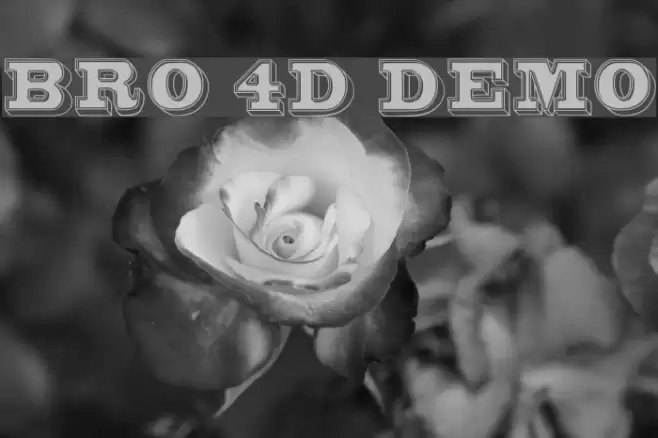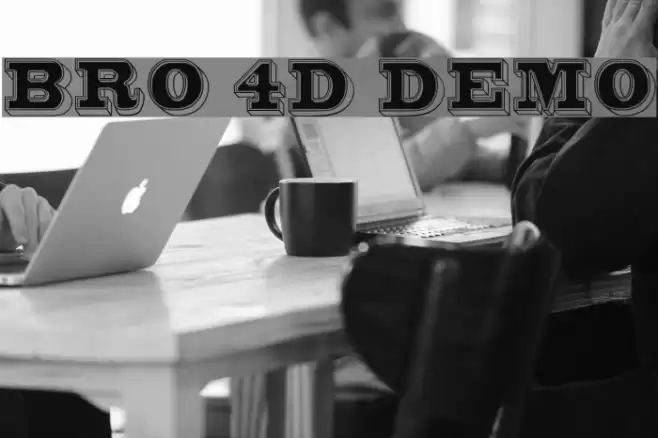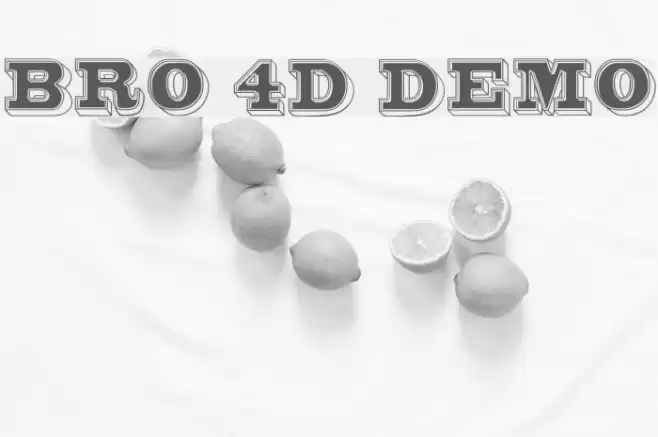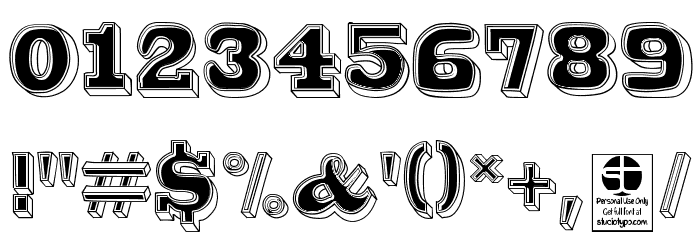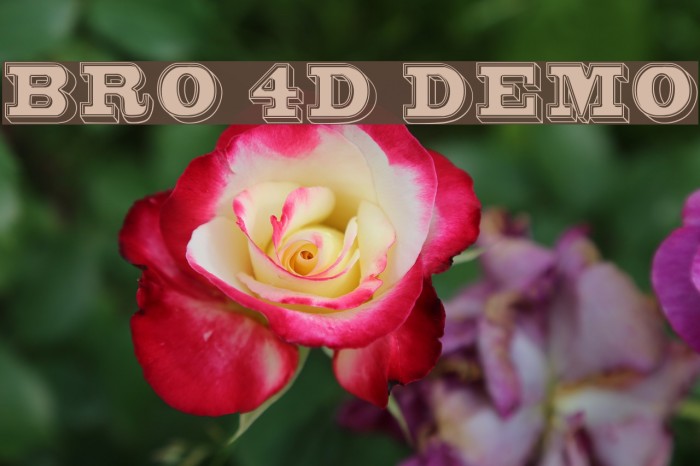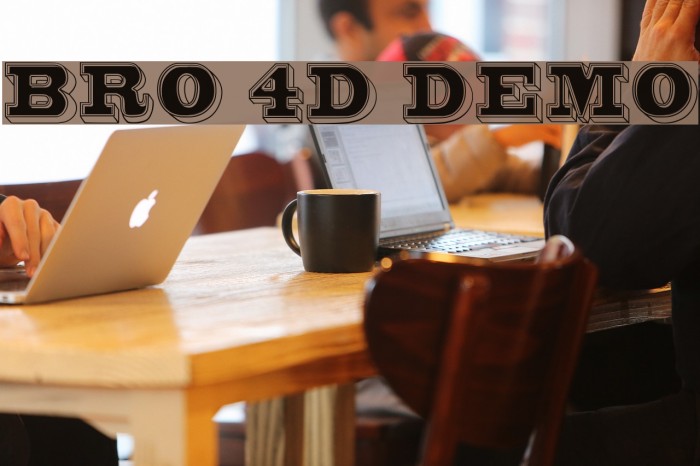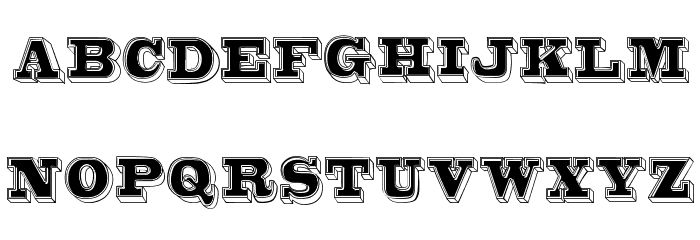
Bro 4D Demo Font
Bro 4D Demo Description
This font features a bold, three-dimensional style with a strong, shadowed outline that gives each character a striking and impactful appearance. The uppercase letters are designed with a solid, blocky structure, while the numbers and special characters maintain the same robust aesthetic. The font's unique 3D effect is achieved through a combination of thick strokes and shadowing, making it ideal for designs that require a bold statement. The characters are evenly spaced, ensuring readability while maintaining a dramatic visual effect. This font is perfect for projects that need a touch of modern flair combined with a classic, bold look.
A bold, 3D font with strong outlines and shadow effects, ideal for impactful designs from Uncategorized fonts.
- Proposed Projects: This font is perfect for poster designs, headlines, logos, and any project that requires a bold, eye-catching typeface.